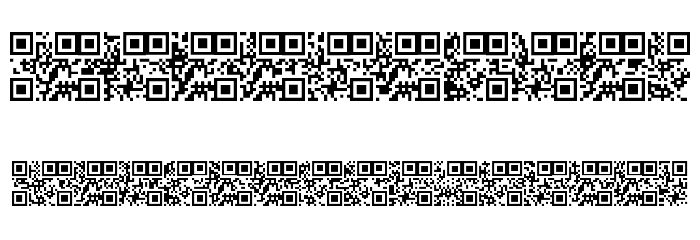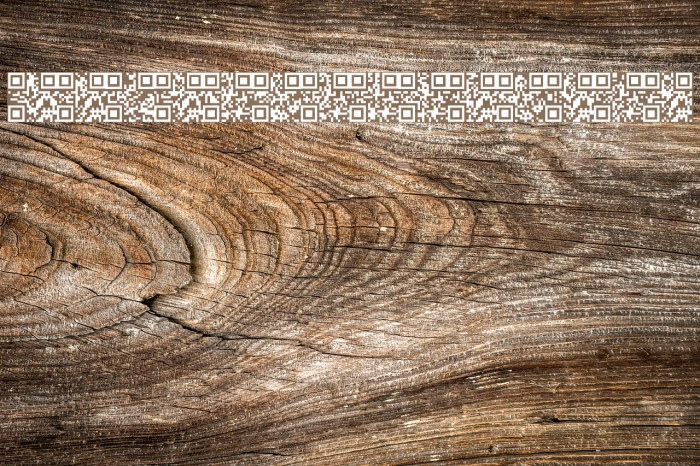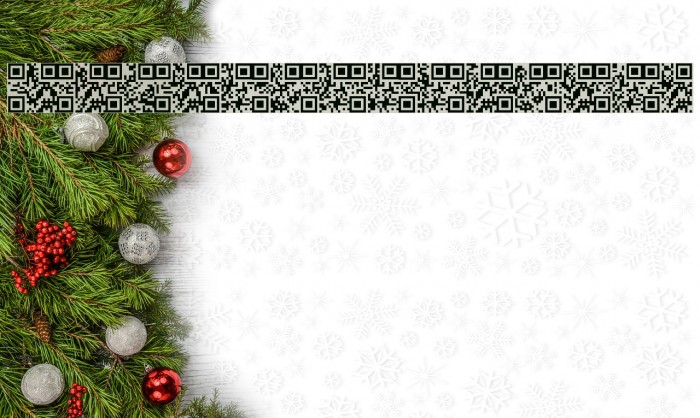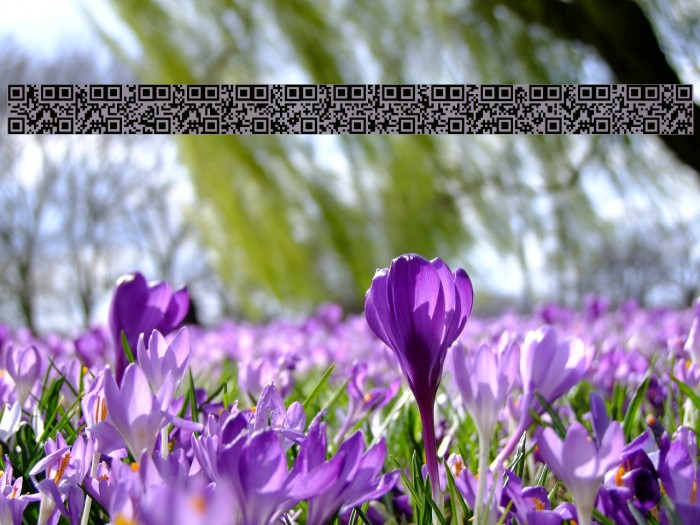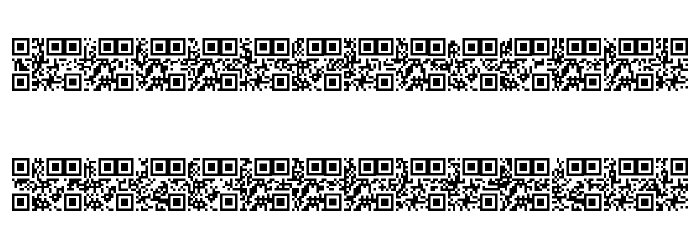
AlphanumericQR Font
AlphanumericQR Description
This is not a traditional font but a series of QR code-like symbols representing alphanumeric characters and symbols. Each character is encoded as a unique matrix pattern, making it machine-readable rather than human-readable.
| Overall Style | Modern, Tech-inspired, Experimental |
| Use Case | Logos, Digital art, Machine-readable text, Tech branding |
| Proposed Projects | Data encoding, digital art, cryptography, machine-readable labels, tech branding. |